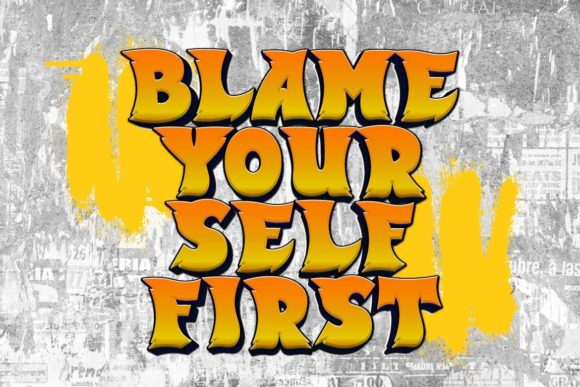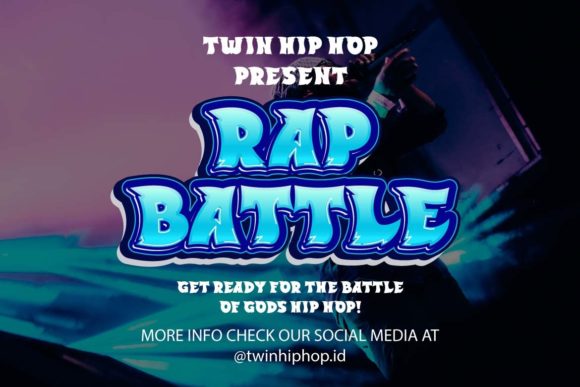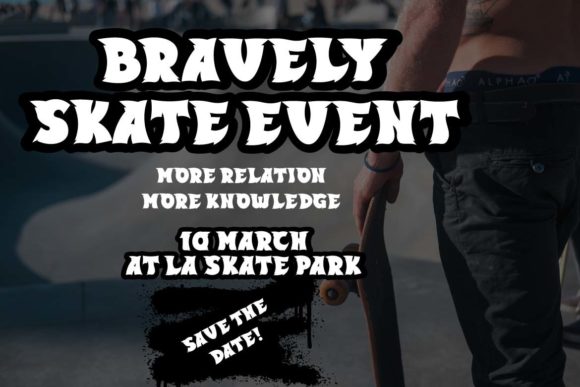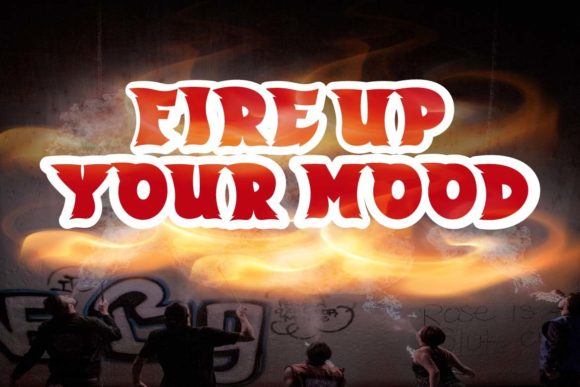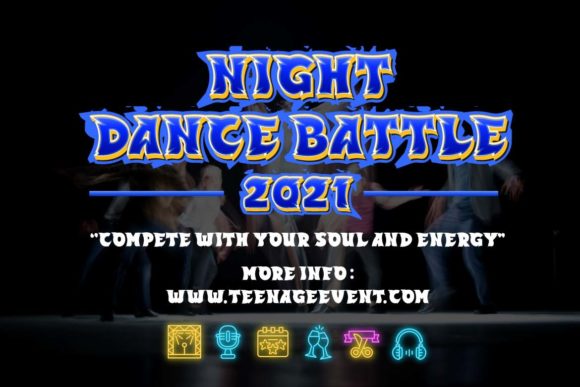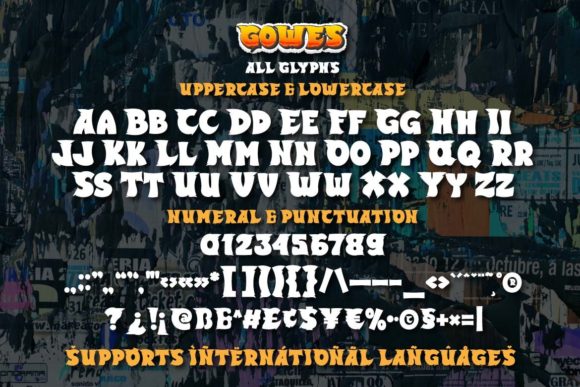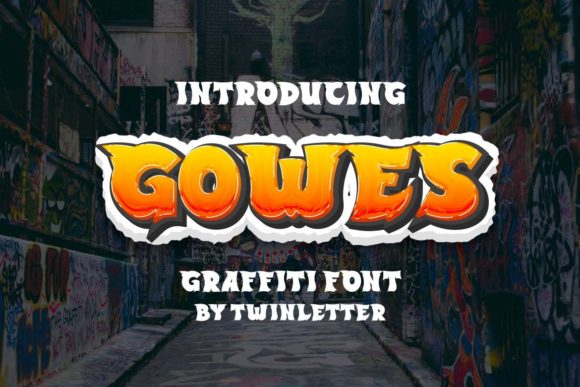
Unleash Your Creativity with Gowes Font: The Ultimate Graffiti Display Font
Are you looking for a font that can add a bold, forceful, and speedy touch to your projects? Look no further than Gowes Font, a graffiti-themed display font that is perfect for designers and crafters who want to create unique and distinctive designs. In this article, we’ll explore the features and benefits of Gowes Font, and show you how to use it to take your projects to the next level.
What is Gowes Font?
Gowes Font is a graffiti-themed display font that is designed to add a bold and edgy touch to your projects. With its unique and distinctive design, this font is perfect for product logos, poster titles, headlines, packaging, film titles, logotypes, and trendy graffiti designs. Whether you’re a designer, crafter, or DIY enthusiast, Gowes Font is a great choice for anyone who wants to add a bit of attitude and personality to their work.
Key Features of Gowes Font
So, what makes Gowes Font so special? Here are some of its key features:
- Graffiti-themed design: Gowes Font has a bold and edgy graffiti-themed design that is perfect for adding a bit of attitude and personality to your projects.
- Display font: This font is designed specifically for display purposes, making it perfect for headlines, titles, and other large-format text.
- Unique and distinctive: Gowes Font has a unique and distinctive design that will set your projects apart from the crowd.
- Versatile: This font is perfect for a wide range of projects, from product logos and poster titles to film titles and packaging.
Benefits of Using Gowes Font
So, why should you choose Gowes Font for your projects? Here are some of the benefits of using this amazing font:
- Adds a bold and edgy touch: Gowes Font adds a bold and edgy touch to your projects, making them stand out from the crowd.
- Increases creativity: With its unique and distinctive design, Gowes Font can help inspire your creativity and take your projects to the next level.
- Perfect for graffiti and street art designs: If you’re creating graffiti or street art designs, Gowes Font is a perfect choice.
Examples of Gowes Font in Action
Here are some examples of how you can use Gowes Font in your projects:
- Product logos: Use Gowes Font to create a bold and edgy logo for your product or brand.
- Poster titles: Use this font to create eye-catching poster titles that grab attention.
- Headlines: Use Gowes Font to create bold and attention-grabbing headlines for your blog posts, articles, or social media posts.
- Film titles: Use this font to create bold and edgy film titles that set the tone for your movie.